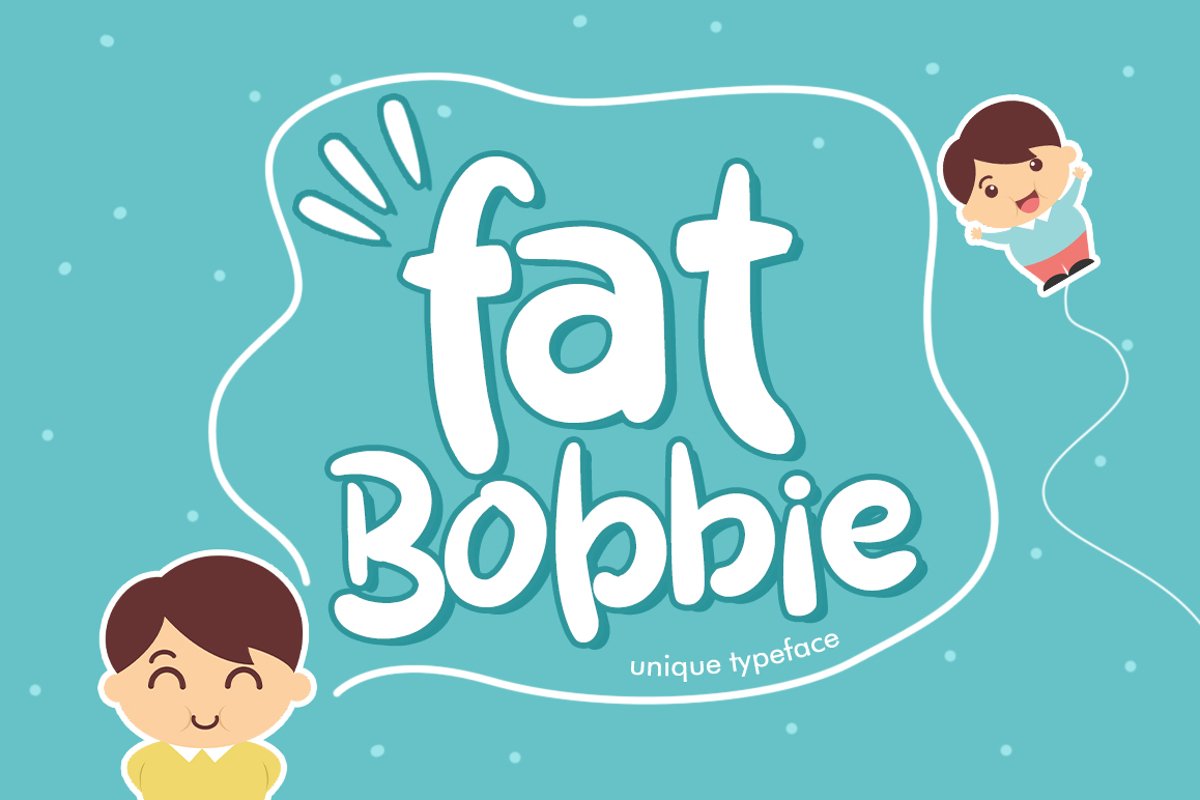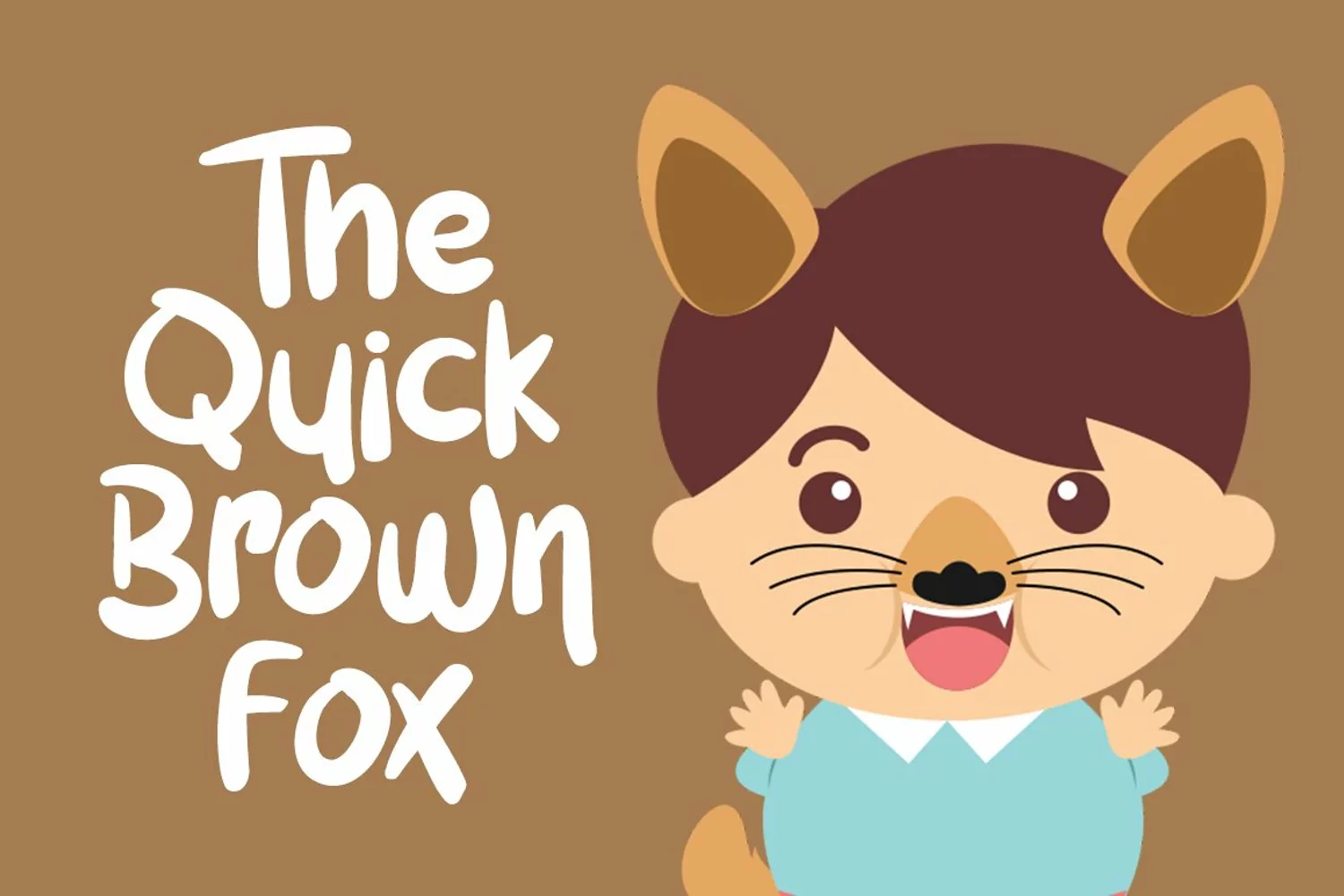
Fat Bobbies has awesome character with 3 fonts, Fat Bobbie Regular, Fat Bobbie Rough & Fat Bobbie Shadow. Fat Bobbie font is perfect for namecards, posters, logos, magazines, covers, banners, tshirts and headers, or even large-scale artwork.